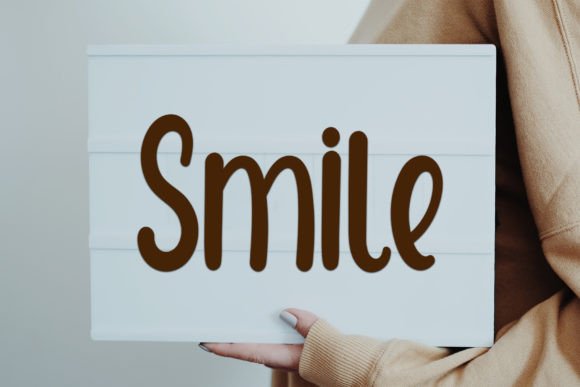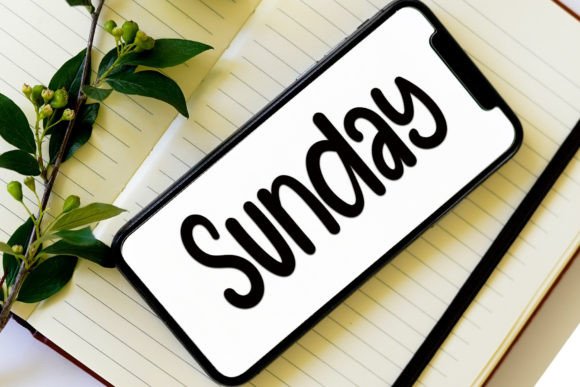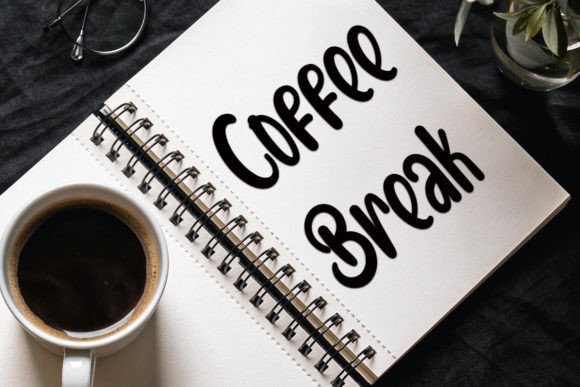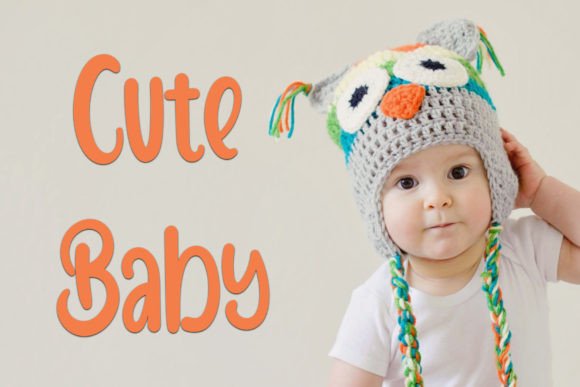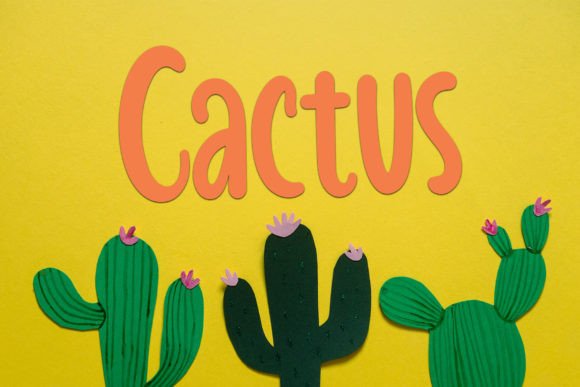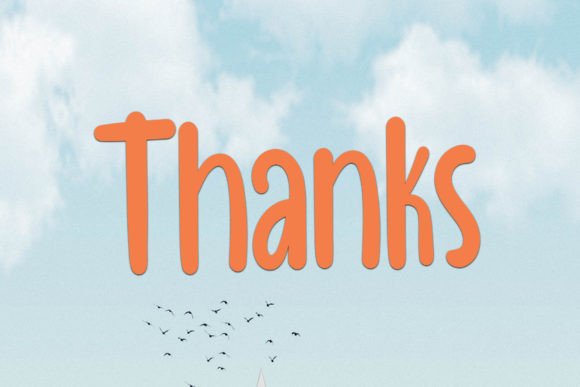
Discover the Elegance of Dooll Font: Elevate Your Designs with a Timeless Handwritten Style
Are you on the hunt for a font that adds a touch of elegance and sophistication to your designs? Look no further than the Dooll Font. This beautiful handwritten font is characterized by its neat and elegant touch, making it perfect for a wide range of projects. From crafting stunning visual content to designing captivating logos, Dooll Font is sure to become your new favorite go-to typeface.
The Distinctive Style of Dooll Font
What sets Dooll Font apart from other typefaces is its incredibly distinct and timeless style. The font’s elegant and refined appearance is sure to capture the attention of your audience and leave a lasting impression. Its unique blend of classic and modern elements makes it versatile enough to be used in various design contexts, from digital media to print materials.
Why Fall in Love with Dooll Font?
There are many reasons why designers and crafters will fall in love with Dooll Font. Here are just a few:
- Elegant and Refined: Dooll Font exudes elegance and sophistication, making it perfect for high-end designs and luxury brands.
- Versatile: The font’s versatility makes it suitable for a wide range of projects, from logos and branding to social media graphics and more.
- Timeless: Unlike trendy fonts that quickly go out of style, Dooll Font’s classic appearance ensures it will remain relevant for years to come.
- Easy to Read: The font’s clear and legible design makes it easy to read, even at smaller sizes.
Perfect for Your Favorite Projects
Dooll Font is perfect for a variety of projects, including:
- Social Media Graphics: Elevate your social media presence with stunning graphics that feature Dooll Font’s elegant style.
- Invitations and Stationery: Add a touch of sophistication to your invitations, business cards, and other stationery with Dooll Font.
- Web Design: Use Dooll Font to create beautiful and engaging website content that resonates with your audience.
Tips for Using Dooll Font Effectively
To get the most out of Dooll Font, here are a few tips to keep in mind:
- Pair with Complementary Fonts: Combine Dooll Font with complementary fonts to create visual interest and hierarchy.
- Experiment with Colors: Try out different colors and textures to add depth and dimension to your designs.
- Play with Sizes: Use varying font sizes to create emphasis and draw attention to specific elements.
In conclusion, Dooll Font is a beautiful and elegant handwritten font that is sure to elevate your designs to the next level. Its timeless style, versatility, and ease of use make it a perfect choice for designers and crafters looking to create stunning visual content. Whether you’re working on a logo, social media graphic, or website design, Dooll Font is sure to become your new favorite go-to typeface.